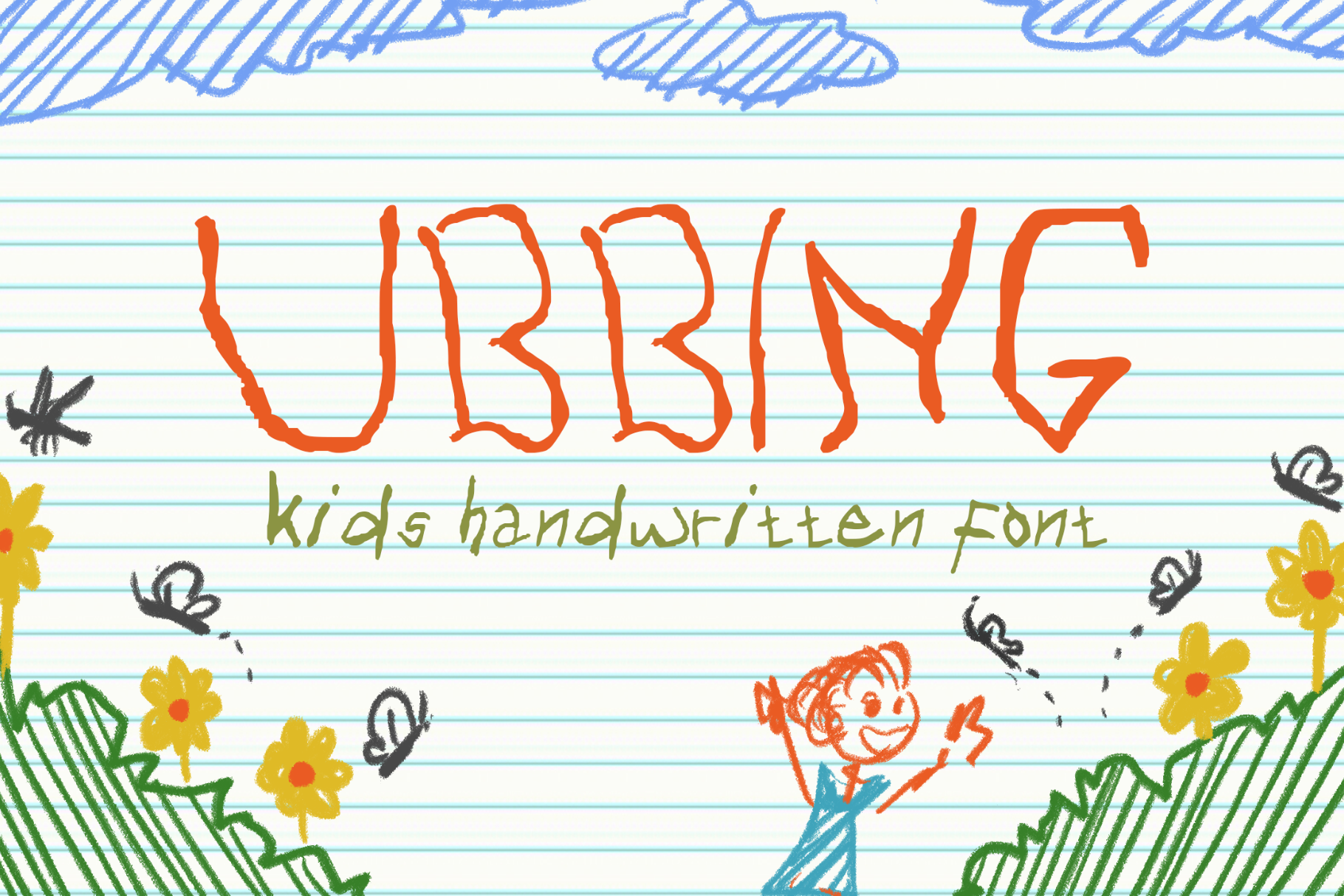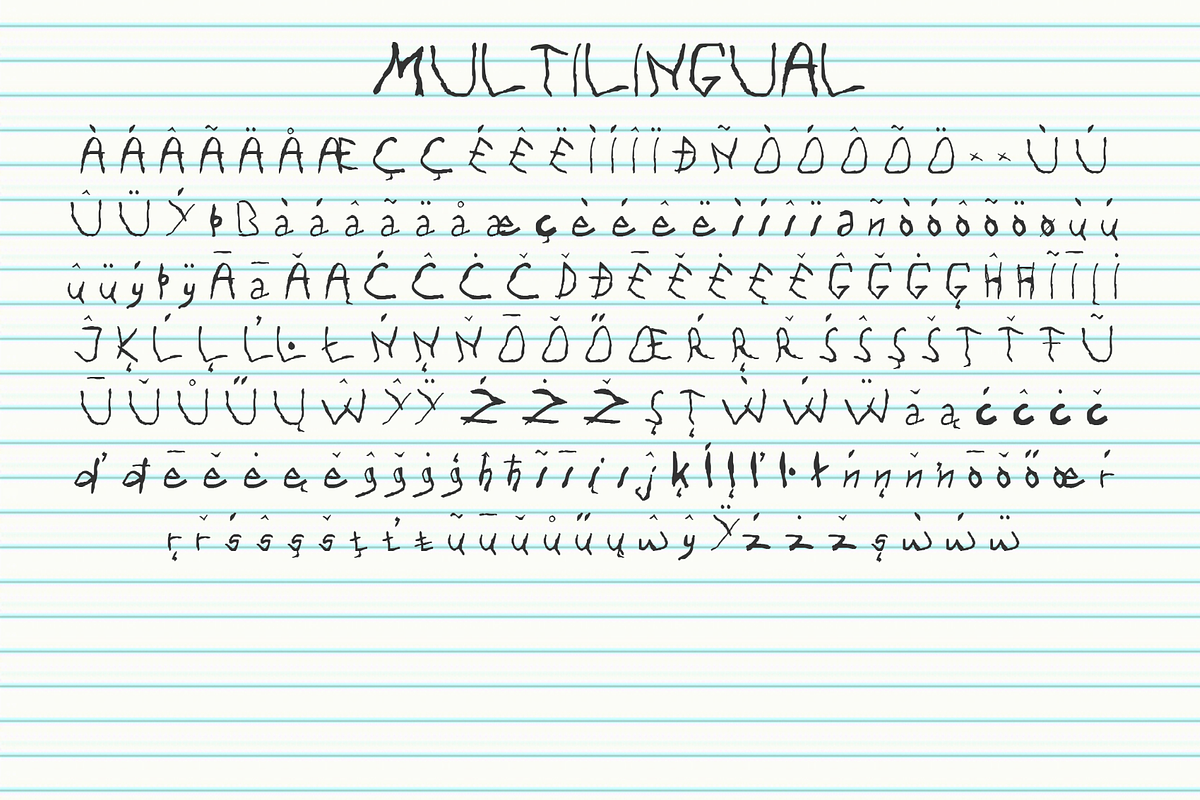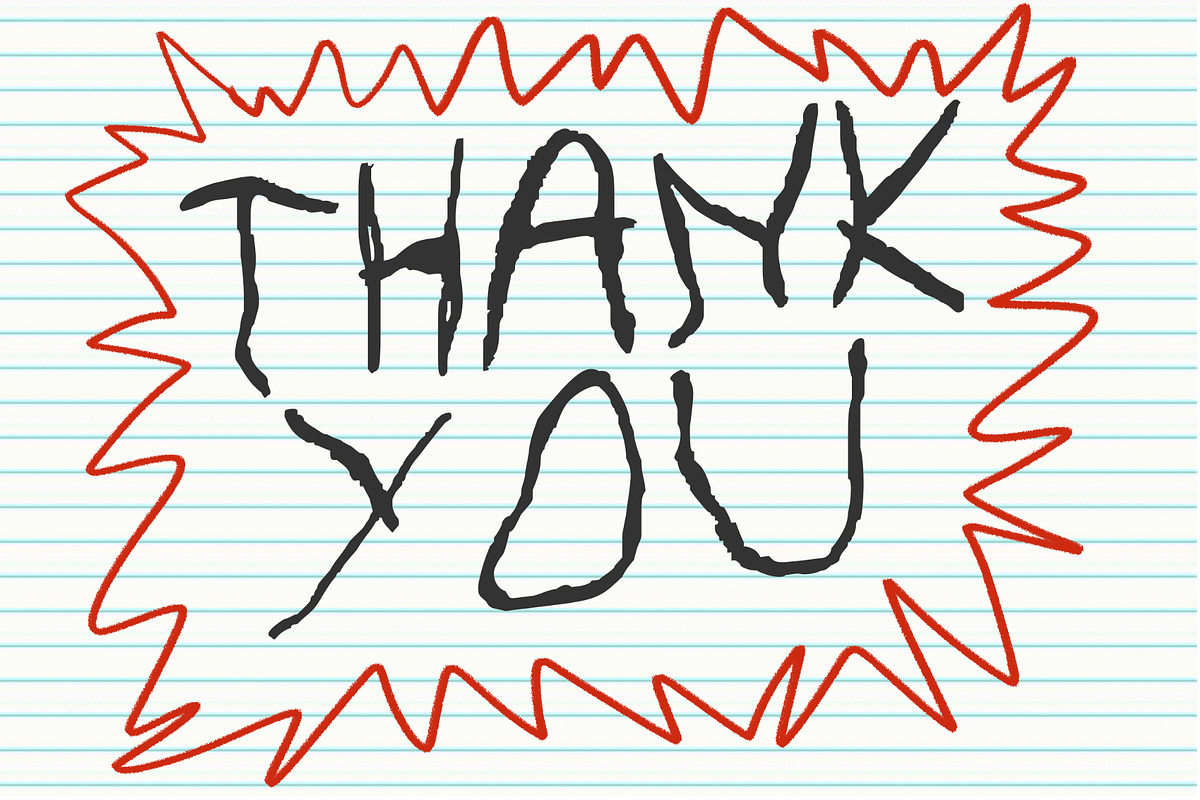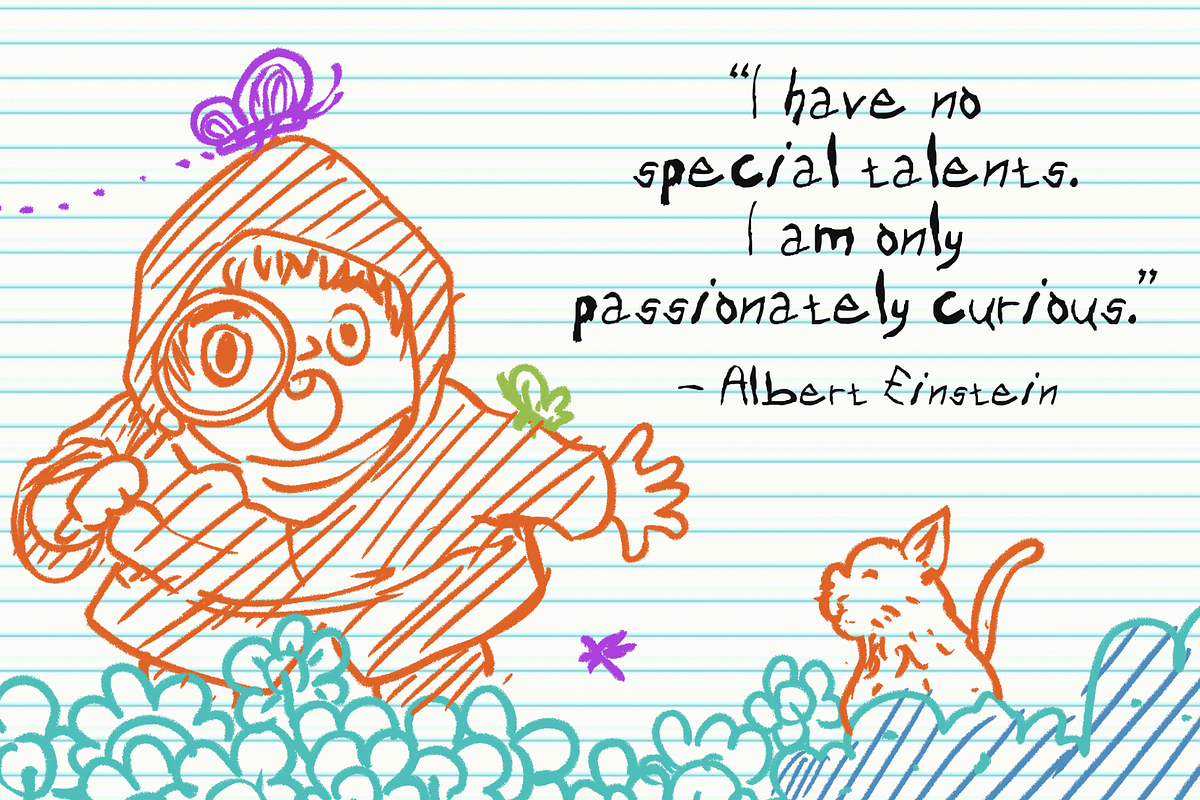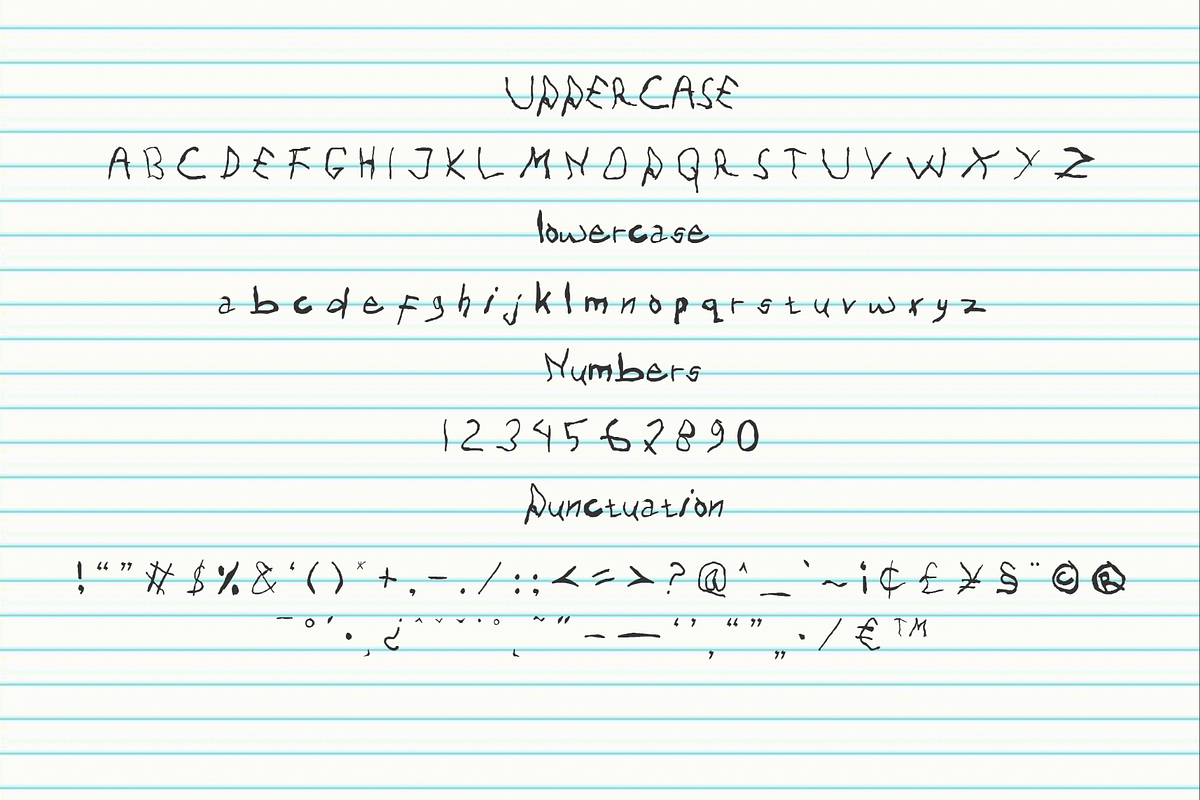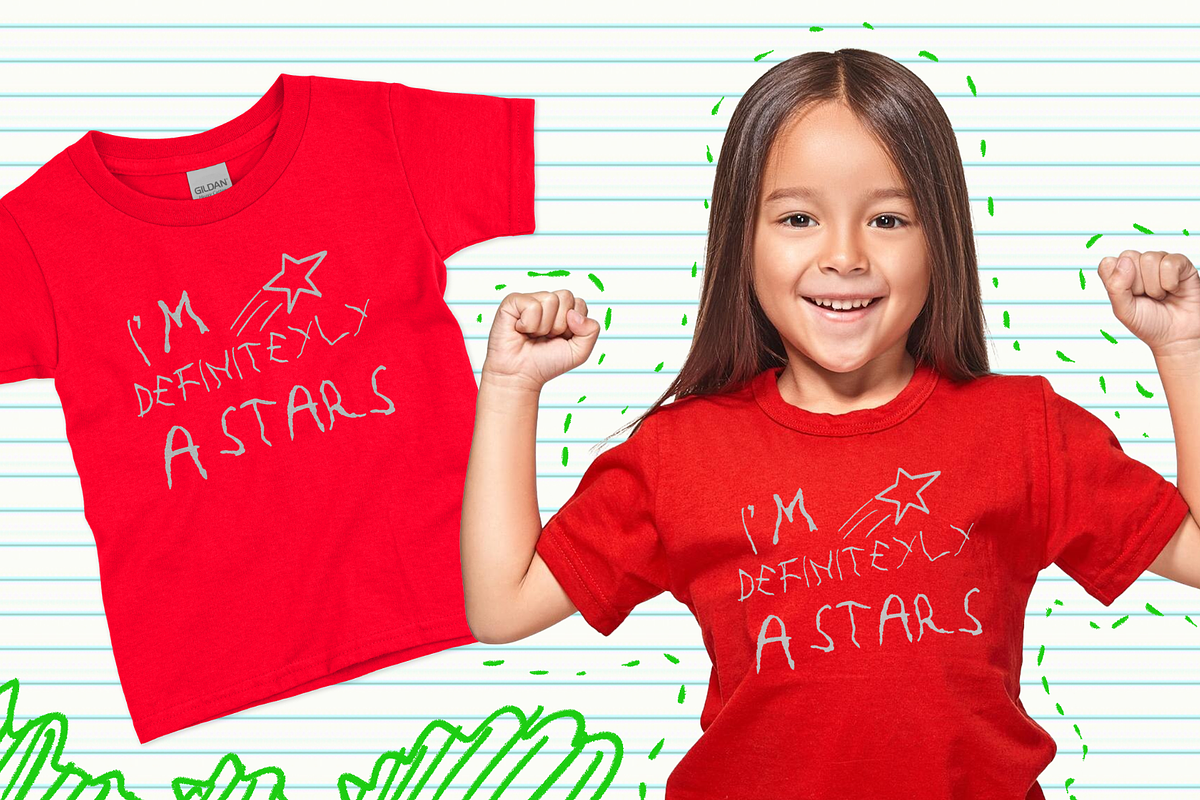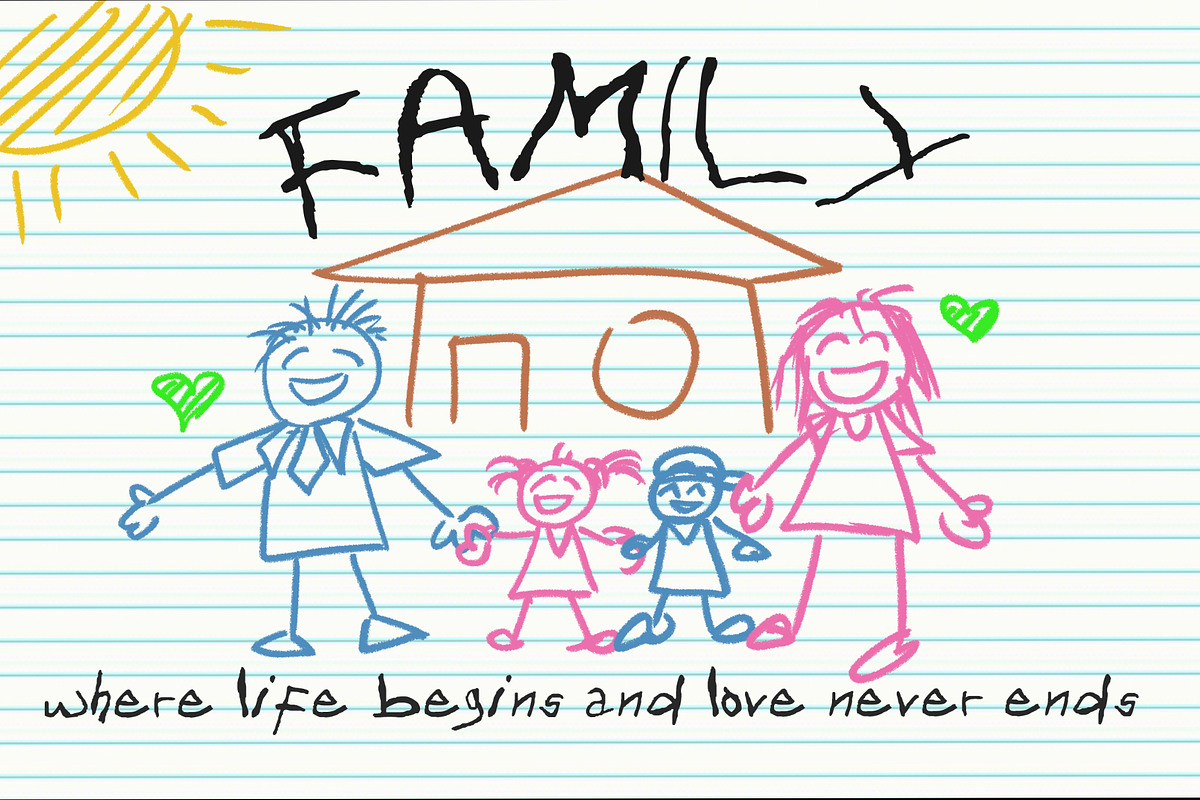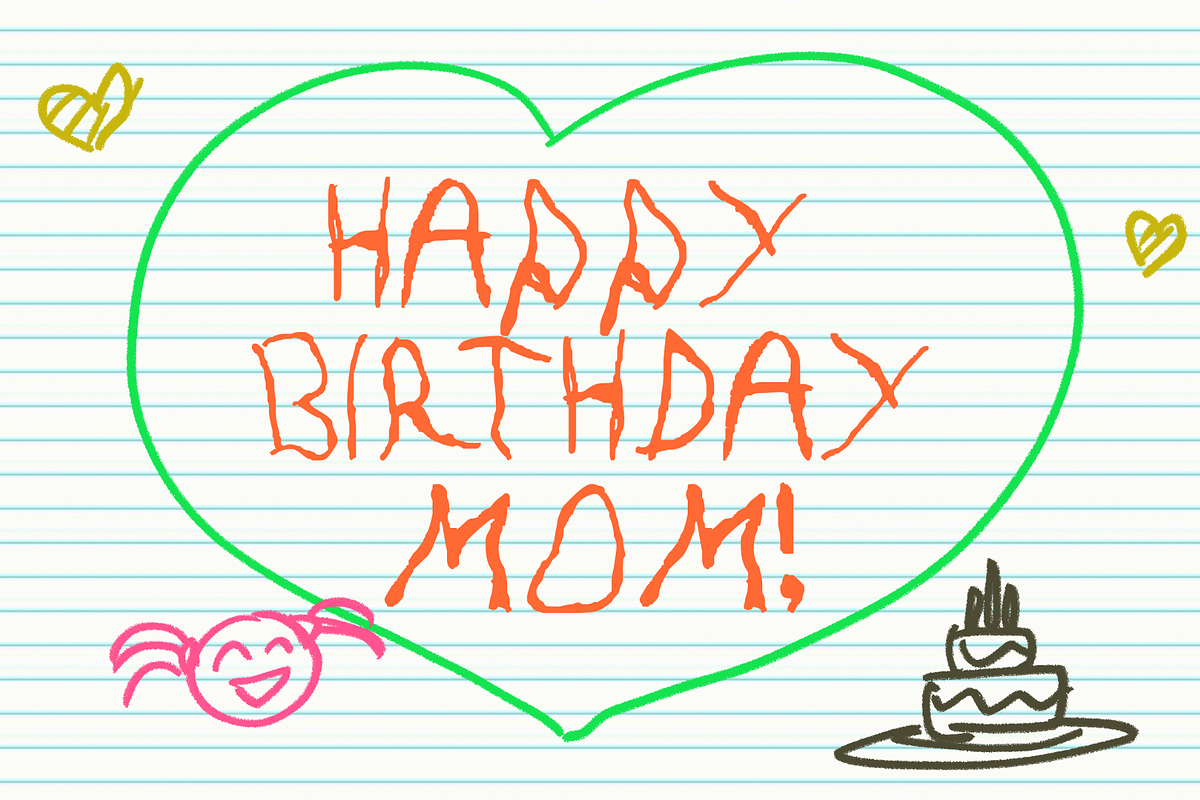
Ubbing-Kid Handwritten Like Font
Introducing "Ubbing," a whimsical and real-like kid hand-written font that exudes fun and tradition. With a playful touch, it seamlessly combines doodle elements and scribbles, ensuring a unique and traditional feel. Ideal for display purposes, written-like content, digital crafts, notebooks, t-shirt designs, and kid books, this multilingual font adds a delightful charm to various projects. Embrace creativity with "Ubbing" for a vibrant and captivating visual experience.